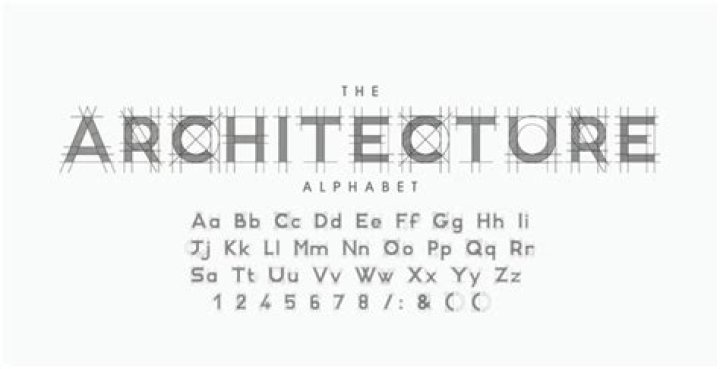
What font is most like architectural writing?
Helvetica. The majority of architects, even without advanced knowledge of graphic design, intuitively select sans serif typefaces, due to its minimalism and straight lines. Among the most used texts, as well as the previous case, Helvetica is notorious among professionals.
What font goes with architects daughter?
Architects Daughter gives the headline a bit of a fun, artsy pop, but Open Sans keeps the primary text legible — exactly as it should be.
What font is similar to stylus bt?
What is architectural lettering?
Architectural lettering is a great way to improve your handwriting. This style of handwriting, simply stated, are uniform block letters that are easy to read. This lettering was established by architects long ago so that all writing on blueprints were legible; therefore costly mistakes would not be made.
What is the typical size of architectural lettering?
What fonts do architects use?
The Architect Bold style as a typographic font is widely used by architects because of its natural look. It looks like it has been handwritten. This type of calligraphy is useful to draw attention to advertising design purposes and also for basic architectural designs.
What is ATF architect font used for?
Architectural font intended for use in technical drawings, presumably with Google Sketchup 7 and the hand-drawn strokes feature. Now, everyone can write li Wayne Thompson had architect”s blueprints in mind when he designed ATF Architect.
Can you write like an architect?